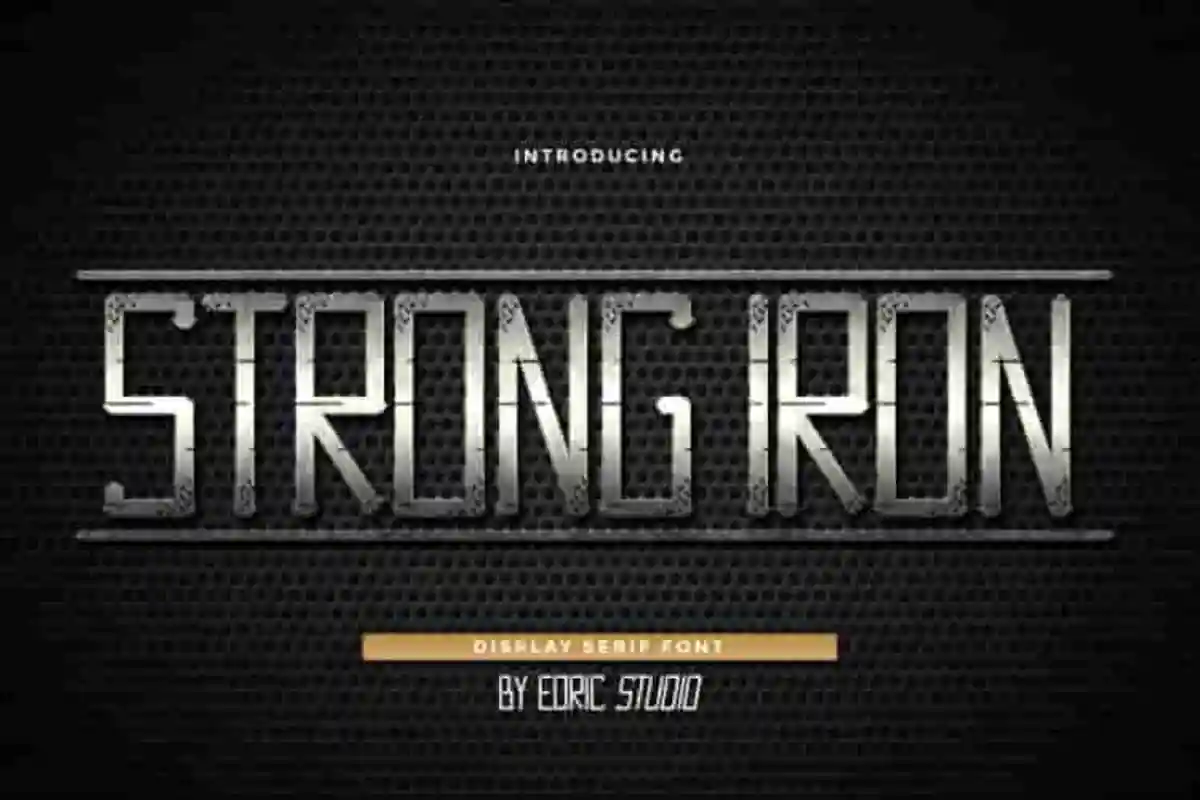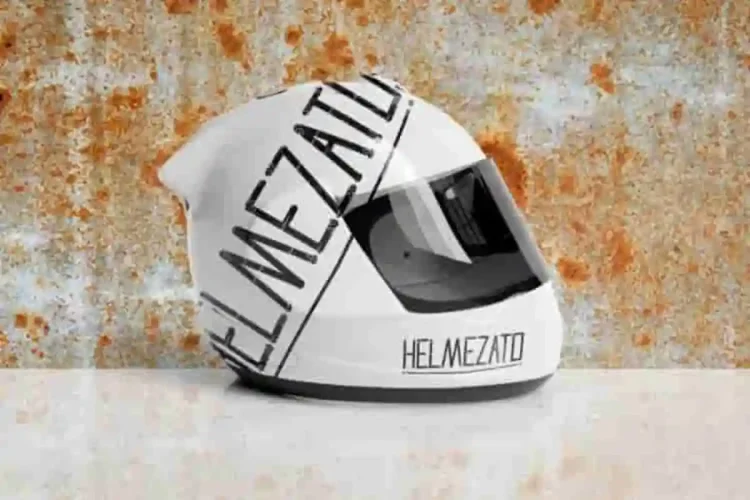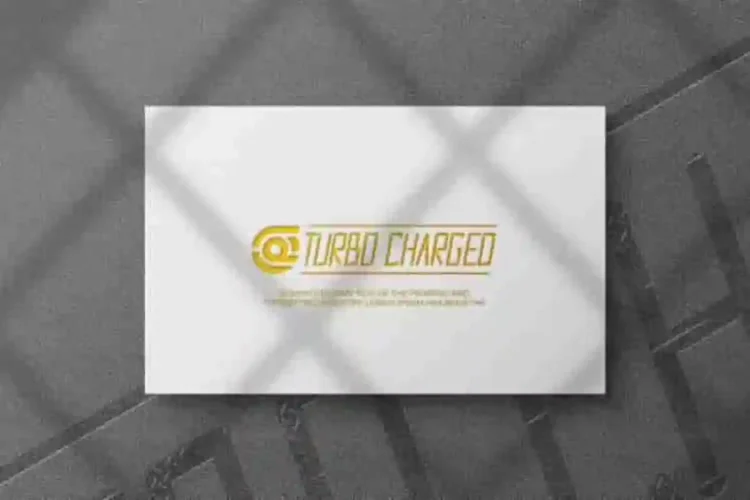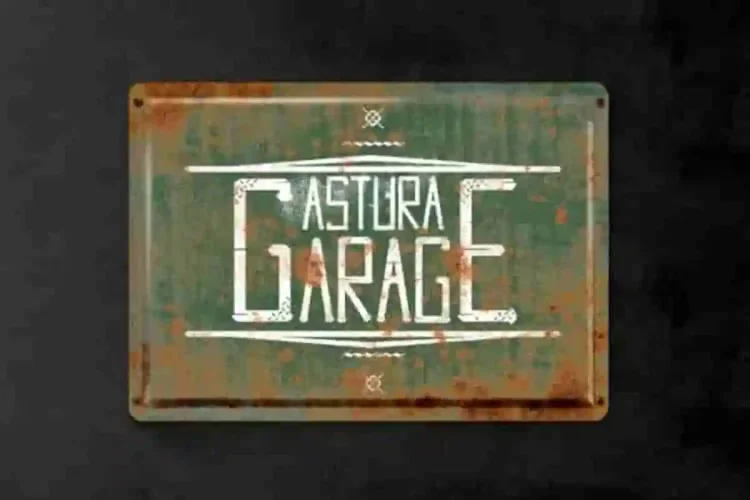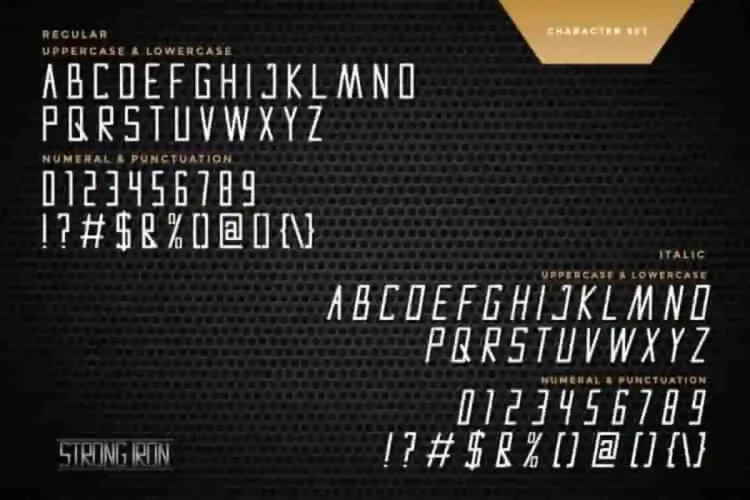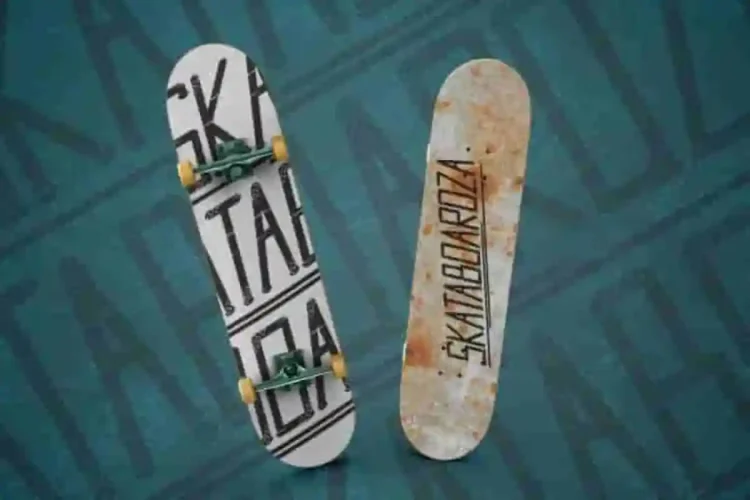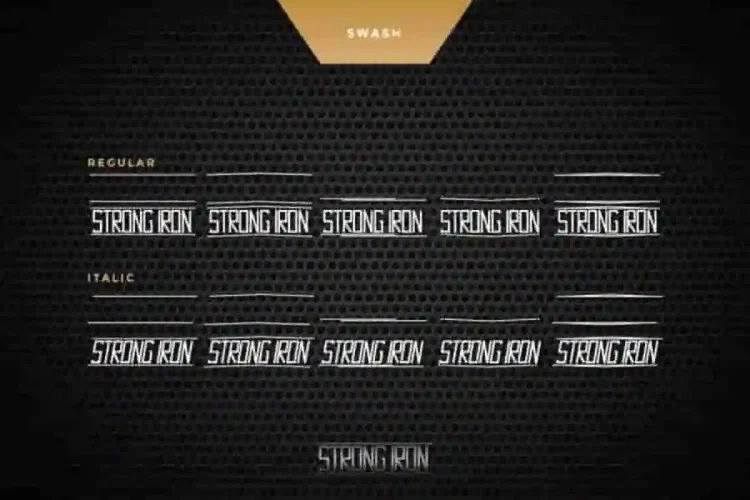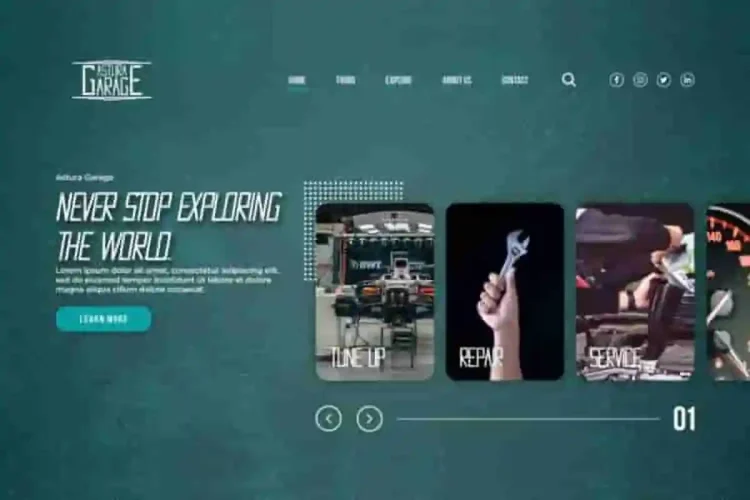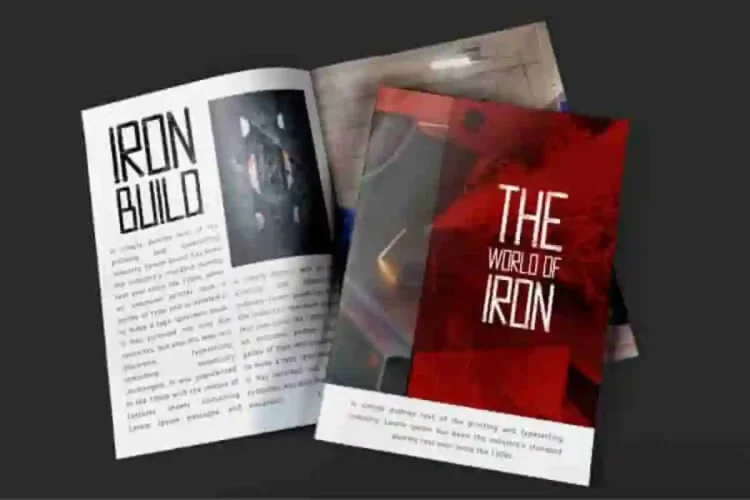
Strong Iron Modern Display Font
Strong Iron Modern Display Font is a special display font family with unique style. It has a Futuristic, gun effect, grunge, strong and exclusive glyphs. Strong Iron Font will be perfect for branding, logo, photography and signature. Strong Iron ensures your message looks strong, stylish, and unforgettable.
Strong Iron Modern Display Font is a bold and powerful typeface designed to bring strength and edge to your creative projects. The font has two styles: Regular and Italic. It works on PC & Mac with Simple installations. Accessible in the Adobe Illustrator, Adobe Photoshop, Adobe InDesign, even work on Microsoft Word. Plus, with PUA Encoded Characters, you can use all features without the need for additional design tools.